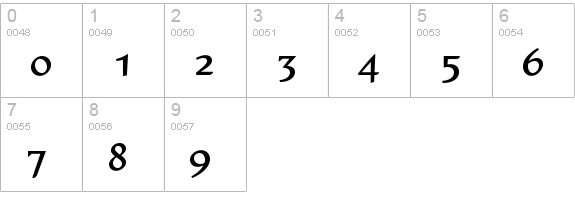
Formal 436 Font Details
Formal 436 is a sophisticated and elegant font that exudes charm and professionalism. With its sleek lines and refined curves, this font is perfect for adding a touch of class to any project. Whether you're designing invitations, creating a logo, or crafting a business presentation, Formal 436 will make your text stand out with its timeless appeal. The best part? Formal 436 is free to download at FontsMarket.com, making it accessible to everyone looking to elevate their design work without breaking the bank. Don't miss out on the opportunity to add this versatile and stylish font to your collection today!